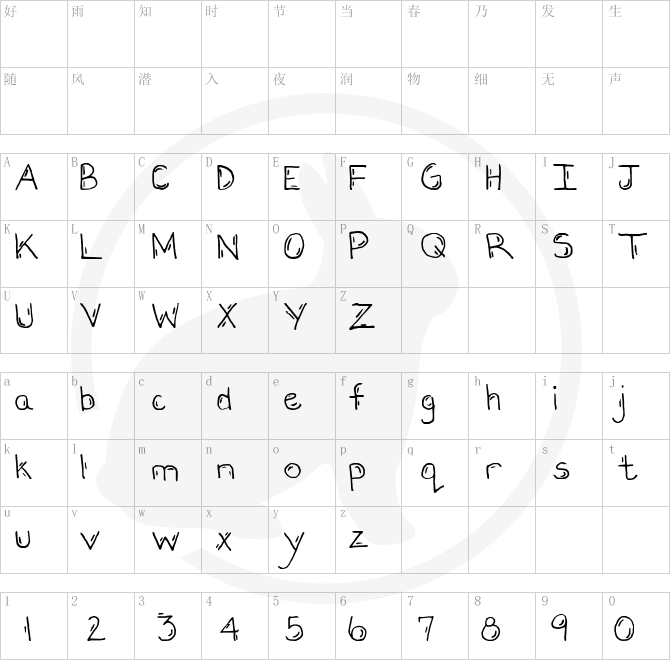
- Font Name:SA_Simple_Lines
SA_Simple_Lines.ttf is a very beautiful artistic font, SA_Simple_Lines.ttf is widely used in the design and printing of various books and pictures,SA_Simple_Lines.ttf has a strong visual impact,SA_Simple_Lines.ttf is a commonly used font in newspapers, magazines and books, and is used in posters, e-commerce Poster design, store design, logo design, font design and other fields.SA_Simple_Lines.